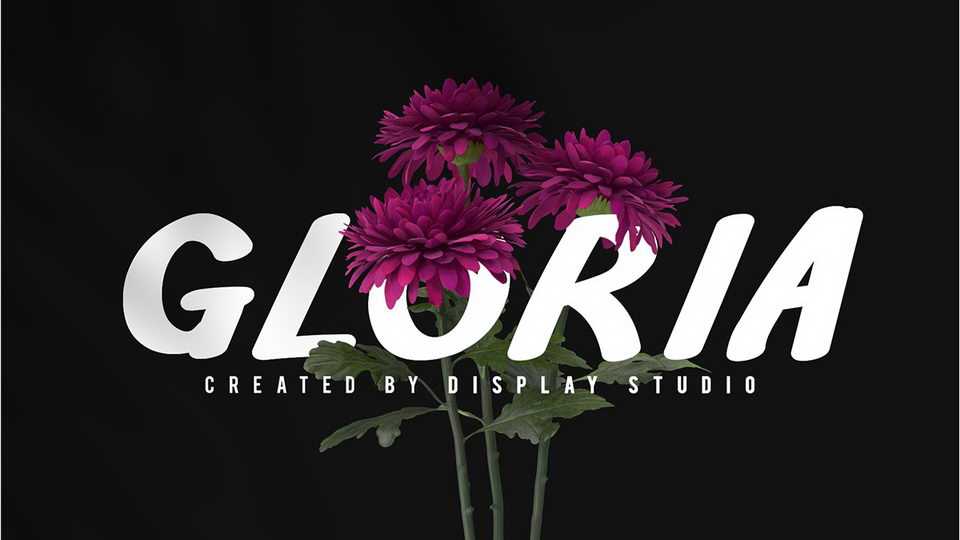
Download Gloria font, a simple handwritten marker typeface. Gloria is perfect for notes, posters, menus, cards and other casual design projects.
Designer: Display Studio